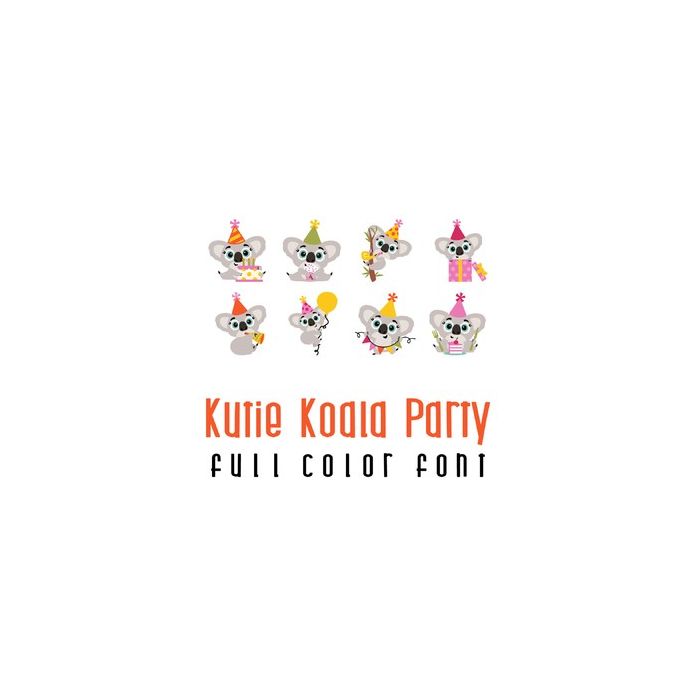
This adorable full color doodlebat font features adorable koalas ready to party! Perfect for cards, crafts, gifts, decor, scrap book pages, planner stickers and more!